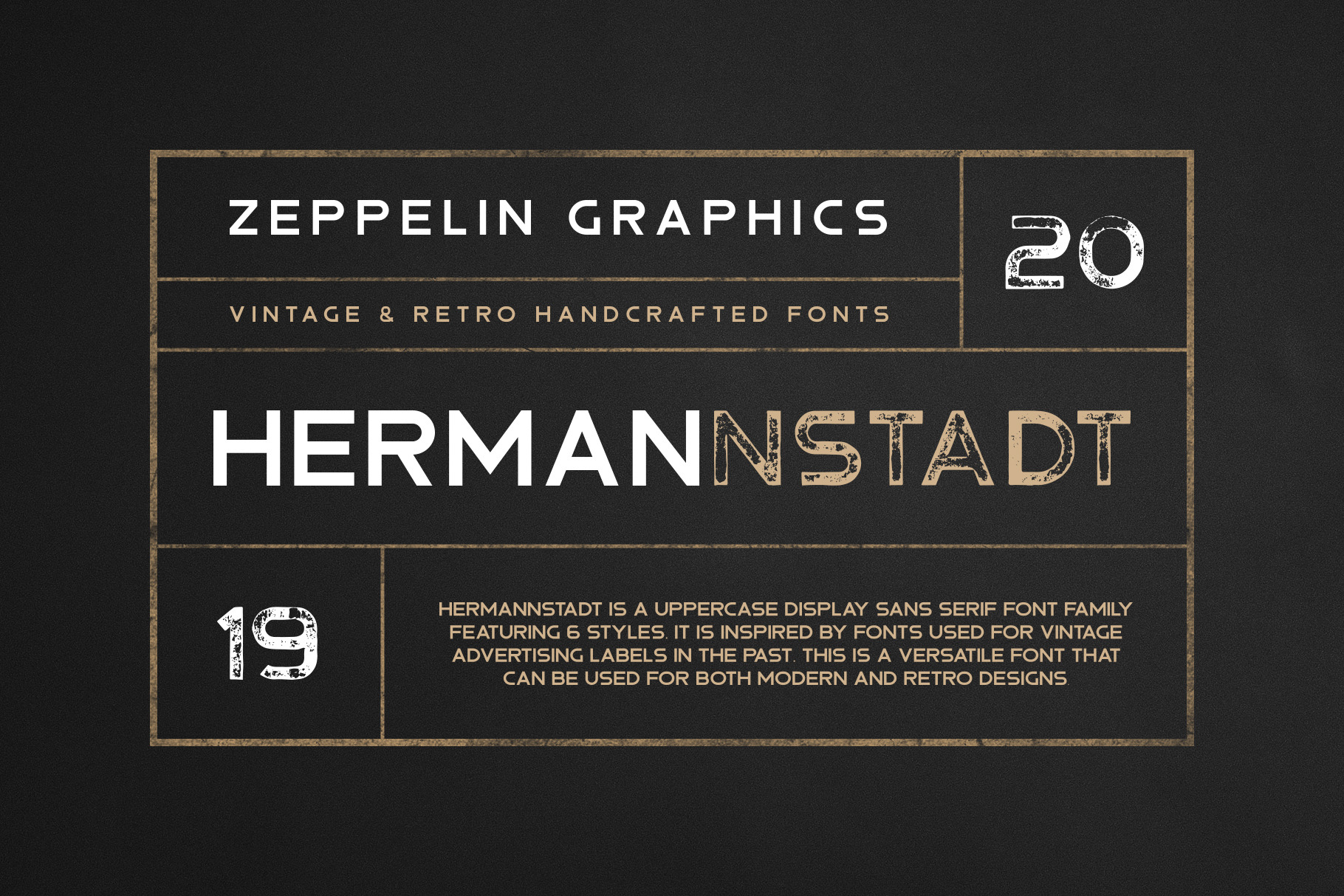
Hermannstadt Font Family
Hermannstadt is a uppercase display sans serif font family featuring 6 styles. It is inspired by fonts used for vintage advertising labels in the past. This is a versatile font that can be used for both modern and retro designs.
- Light, regular & bold
- Normal & press versions